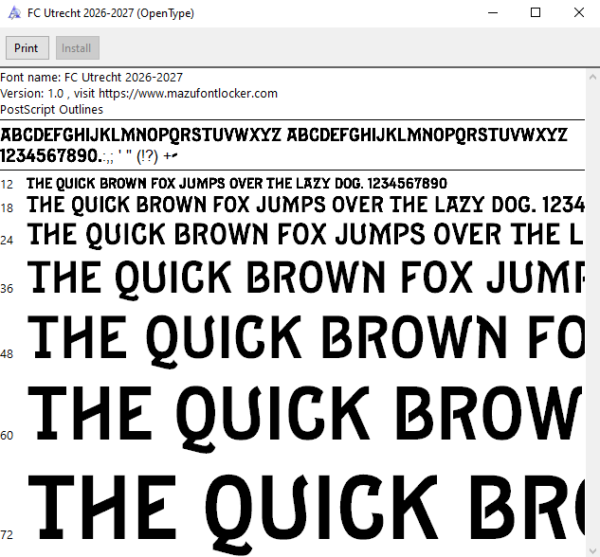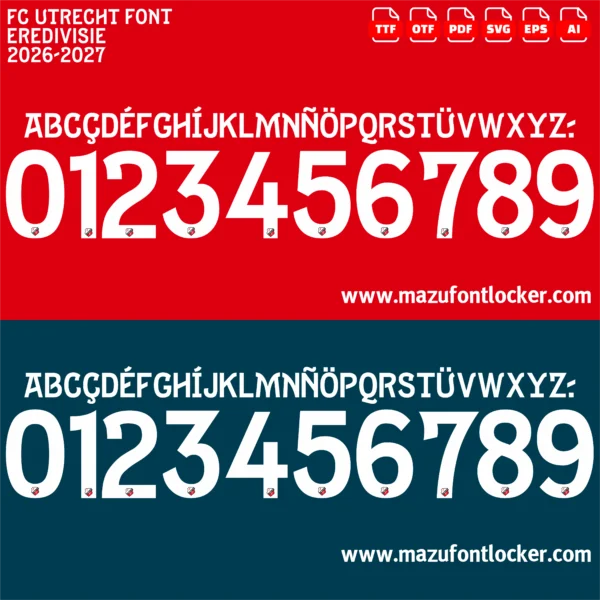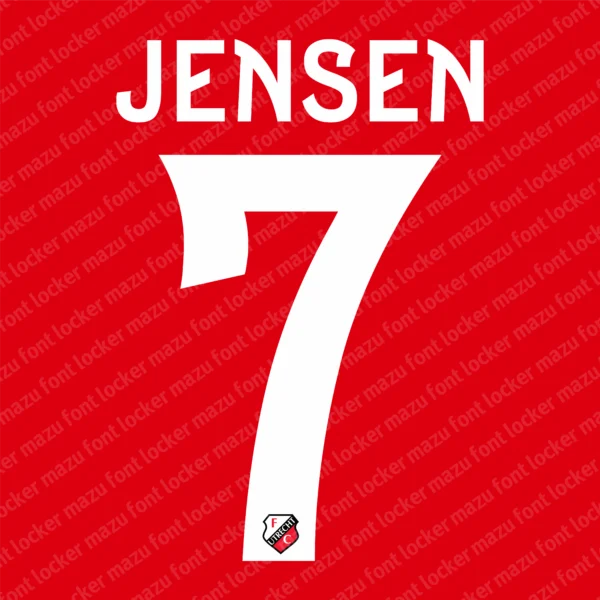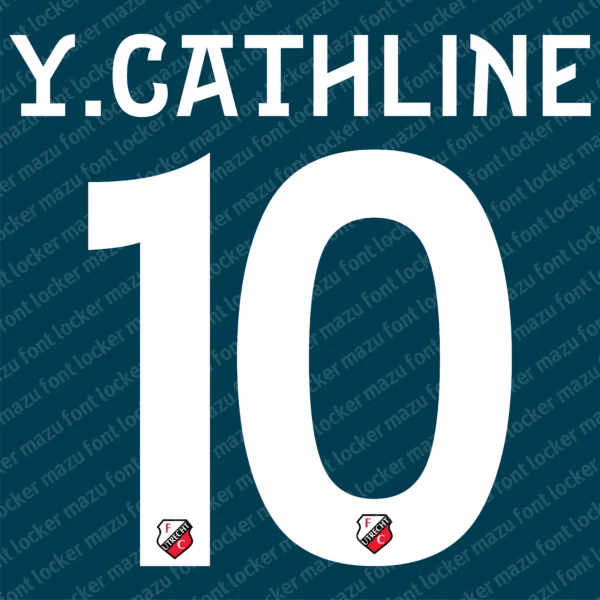
FC Utrecht 2026-2027 Font Vector – Stunning Domstedelingen Masterpiece
This font captures the sharp, precision-crafted lettering inspired by FC Utrecht’s iconic red-and-white identity, proud Dutch football heritage, historic club tradition, Stadion Galgenwaard atmosphere, and exciting 2026-2027 era — delivering premium authenticity and classic match-day energy for professional jersey mockups, football graphics, sports branding, fan designs, and high-end creative projects.
FC Utrecht 2026-2027 Font Vector – Stunning Domstedelingen Football Typeface
The FC Utrecht 2026-2027 Font Vector is a premium football typeface designed to recreate the distinctive lettering associated with FC Utrecht during the 2026-2027 season. This high-quality vector font kit captures a bold, modern, clean, and instantly recognizable football typography style inspired by the club’s iconic red and white identity and proud Dutch football heritage.
Designed for professional graphic designers, football enthusiasts, jersey collectors, and passionate FC Utrecht supporters, the FC Utrecht 2026-2027 Font Vector delivers an authentic contemporary football aesthetic for creating realistic jersey mockups, football merchandise, social media graphics, match posters, squad designs, banners, and custom fan artwork. Every character has been carefully recreated to reflect the powerful and distinctive visual style associated with one of the Netherlands’ established Eredivisie clubs.
Why Choose FC Utrecht 2026-2027 Font Vector
This font stands out thanks to its precise vector construction and authentic football styling. Every letter and numeral has been meticulously recreated to deliver a distinctive football lettering aesthetic inspired by FC Utrecht’s 2026-2027 season and its celebrated Dutch football heritage.
Whether you’re producing professional football kit templates, modern jersey concepts, Eredivisie graphics, contemporary football posters, squad designs, or eye-catching football content, the FC Utrecht 2026-2027 Font Vector delivers a genuine match-ready appearance inspired by the identity of the Domstedelingen.
The lettering featured in the FC Utrecht 2026-2027 Font Vector combines strong geometric lines with balanced football proportions. The result is a premium and highly readable typeface that reflects FC Utrecht’s traditional red and white identity, Dutch football heritage, and modern presence in the Eredivisie.
• Complete uppercase A–Z alphabet and numbers 0–9 in authentic FC Utrecht 2026-2027 inspired style
FC Utrecht 2026-2027 Era
The 2026-2027 season represents an exciting new chapter in FC Utrecht’s football history. The club continues competing in the Netherlands’ top-flight football competition, the Eredivisie, while maintaining its distinctive red-and-white identity and strong connection with the city of Utrecht.
The official FC Utrecht website confirms that the club’s 2026-2027 Eredivisie campaign began with an away match against FC Groningen on 9 August 2026, followed by the first home league match against AZ at Stadion Galgenwaard.
The club also introduced its new 2026-2027 home kit, featuring a modern interpretation of classic FC Utrecht designs from the 1990s. The red-and-white shirt is combined with red shorts and white socks, while the shirt numbers include a subtle Dom Tower silhouette.
The FC Utrecht 2026-2027 Font Vector is inspired by the distinctive football typography and visual identity associated with the club during this modern period, making it an excellent choice for designers creating contemporary jersey concepts, Eredivisie posters, squad graphics, football artwork, social media designs, and fan-made projects.